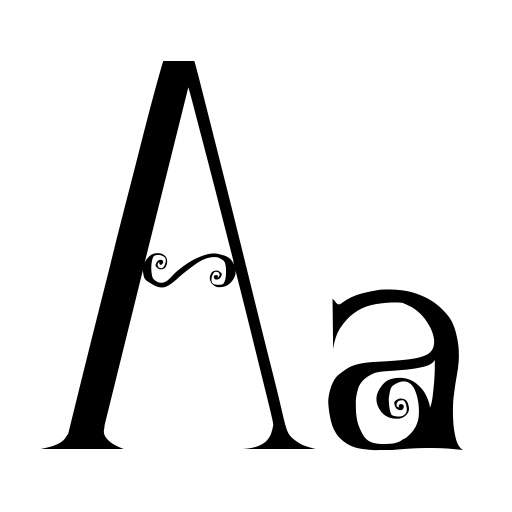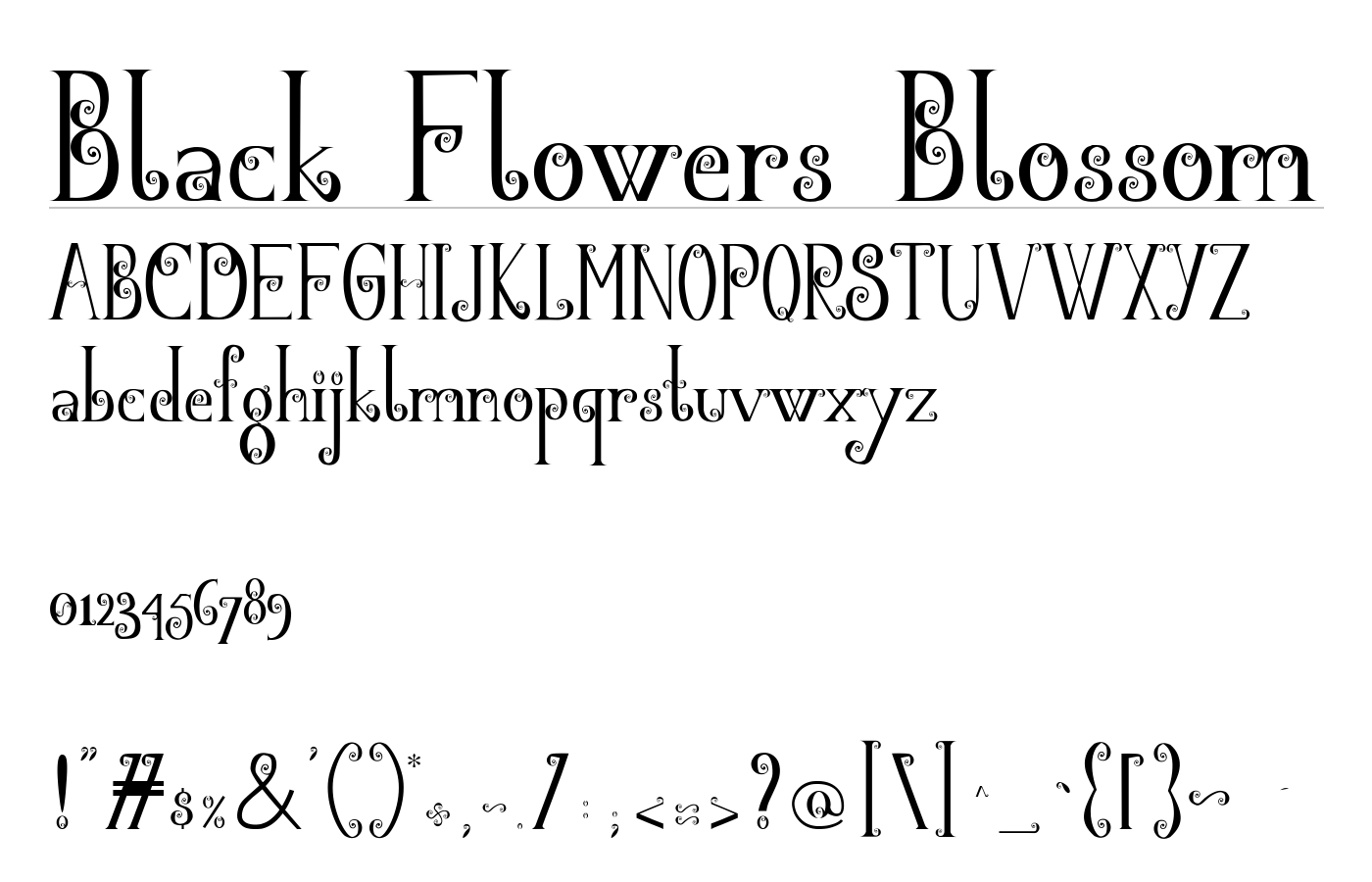
Black Flowers Blossom is a decorative serif font with a whimsical, vintage charm, characterized by its tall, narrow letterforms and playful curls on many strokes. Its high contrast between thick and thin lines, combined with ornate swirls, gives it an elegant yet quirky personality, making it ideal for creative headlines, branding, or invitations where a unique artistic flair is desired. This font works best in designs that seek to blend sophistication with a touch of fantasy or nostalgia.
Black Flowers Blossom Font
About Black Flowers Blossom Font
| Font family | Black Flowers Blossom Font |
| Designer | Laura Arrieta |